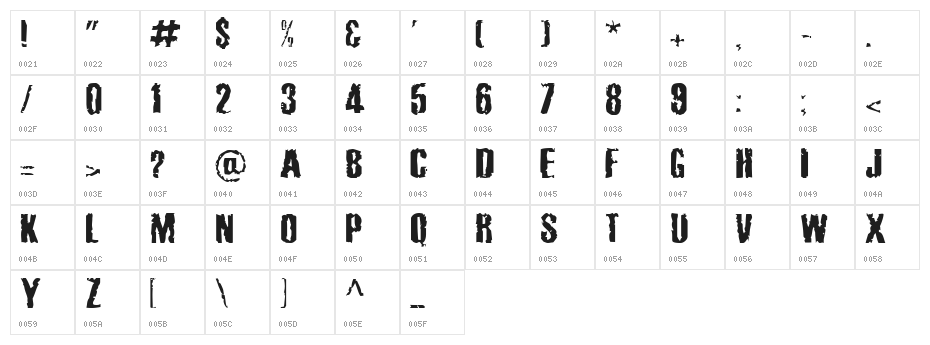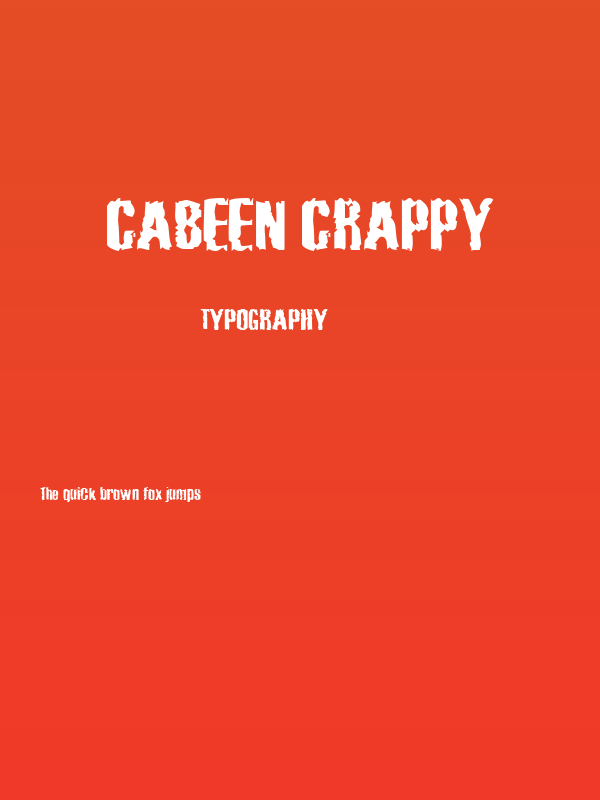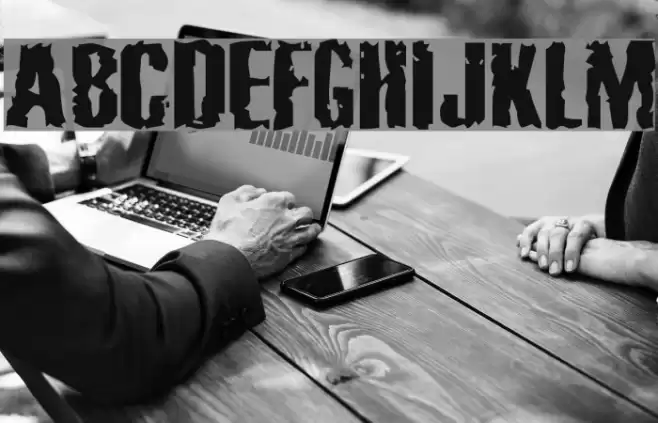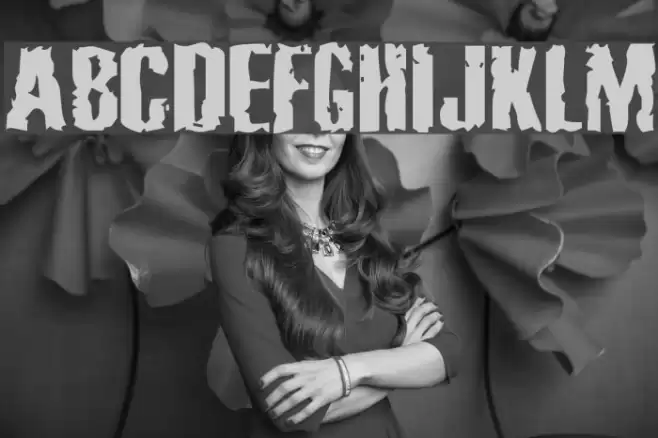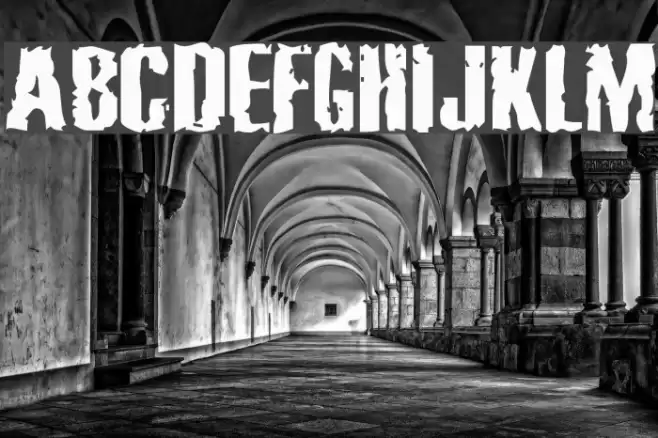
Cabeen Crappy Font
Cabeen Crappy Description
This font features a rugged and distressed appearance, with jagged edges and irregular shapes that give it a raw, edgy feel. The characters are bold and heavily stylized, creating a sense of movement and chaos. Each letter appears as if it has been torn or eroded, adding to its unique and rebellious aesthetic. The uppercase and lowercase letters maintain a consistent style, while the numbers and special characters follow the same distressed theme. This font is ideal for projects that require a bold statement or a gritty, urban vibe.
| Proposed Projects | Album covers, streetwear branding, event posters, video game titles, and horror-themed designs. |